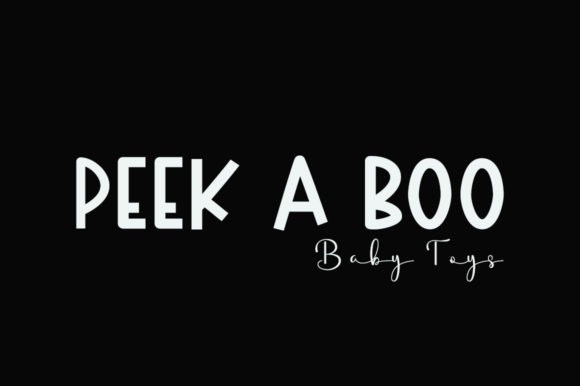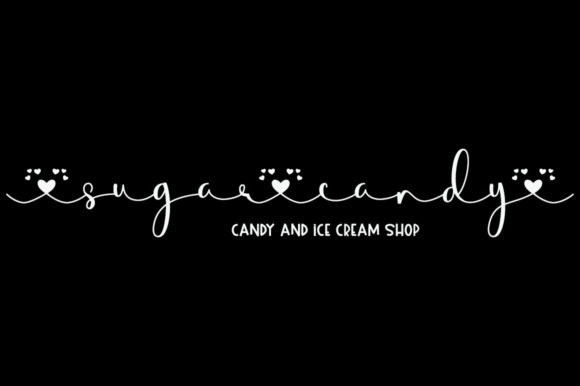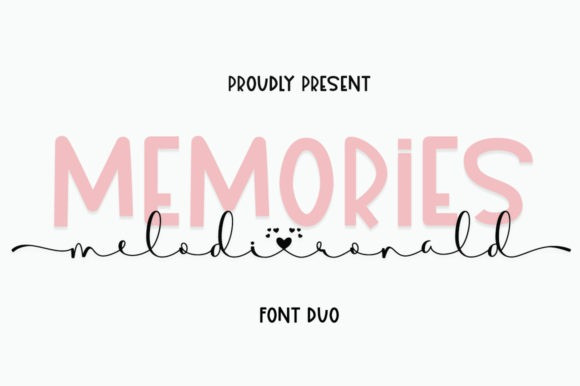
Memories Display Font Duo
Memories Display Font Duo is an elegant and playful duo font (decorative and handwritten). It features dainty and delicate swashes that will add an original, appealing look to a wide range of crafty ideas. This font is PUA encoded which means you can access all of the glyphs and swashes with ease!